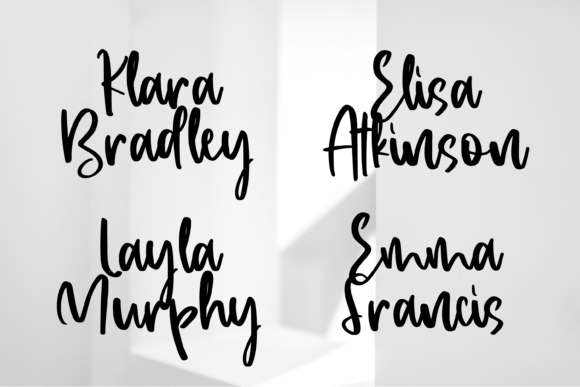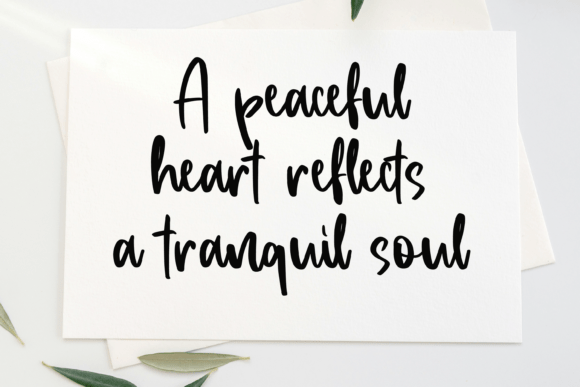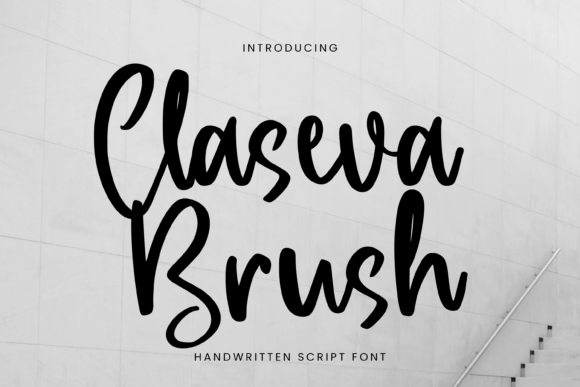
Claseva Font
About the Claseva Font
The Claseva Font offers a perfect balance of form and function for your design needs. Meet Claseva – a chic, handwritten script font with a charming character. Its flawless blend of elegance and casual style makes it the perfect choice for wedding invitations, logos, and branding. With its unique appeal, Claseva is also an exceptional pick for all those upscale projects that demand a touch of sophistication. This cute, captivating handwritten script font promises to bring a personal touch to any design. Claseva isn’t just a font, it’s an irresistible aesthetic experience.
Claseva’s elegant yet casual style makes it ideal for short text applications like logos, headlines, and short-form marketing materials. It works exceptionally well in branding projects aiming for a sophisticated, yet approachable feel, and on packaging for premium products. However, its delicate nature makes it unsuitable for body text or long paragraphs, where readability suffers.
Consider pairing Claseva with a clean sans-serif like Montserrat for a modern contrast or a classic serif such as Garamond for a more traditional feel. For a playful yet upscale look, a geometric sans-serif like Futura could work well. Avoid pairing it with overly decorative or overly heavy fonts which would overwhelm its charm.
Claseva projects a personality that is both sophisticated and friendly. It’s perfect for brands seeking to communicate high quality and approachability, such as artisanal food companies, boutiques, or wedding-related businesses.
Claseva Font Usage Examples
Claseva Font Example